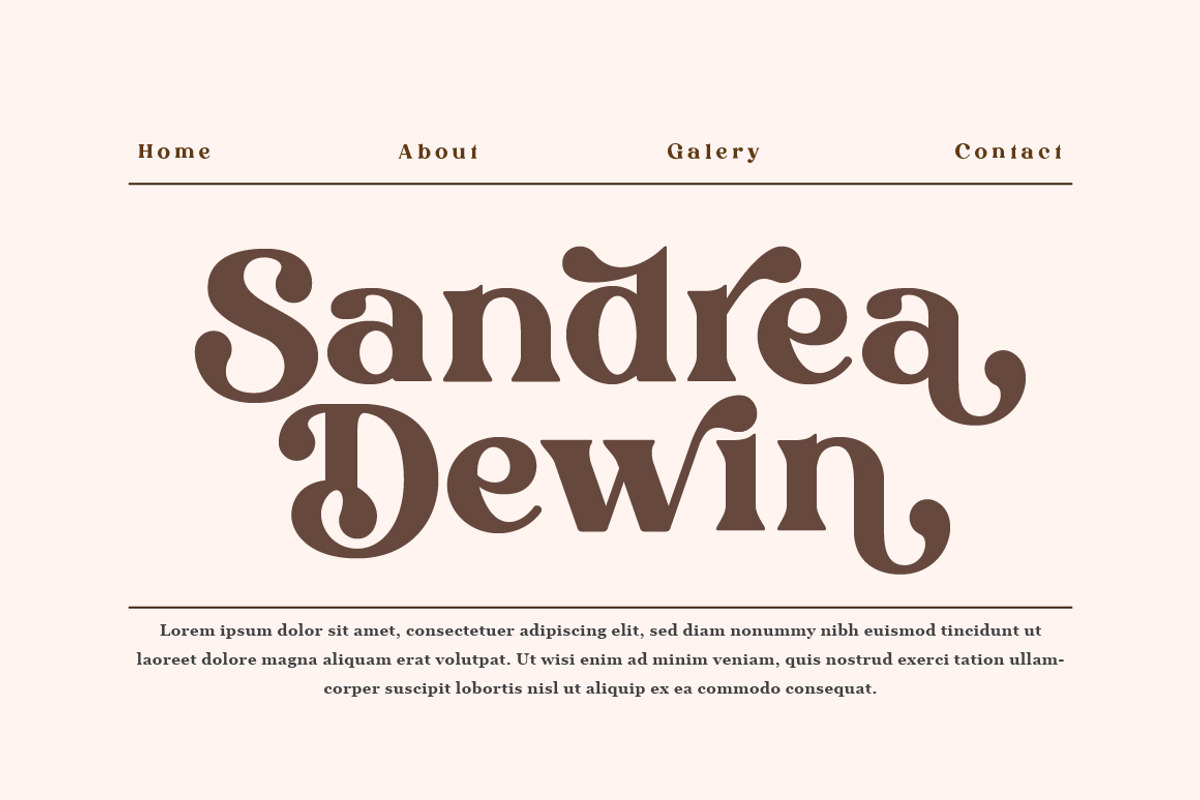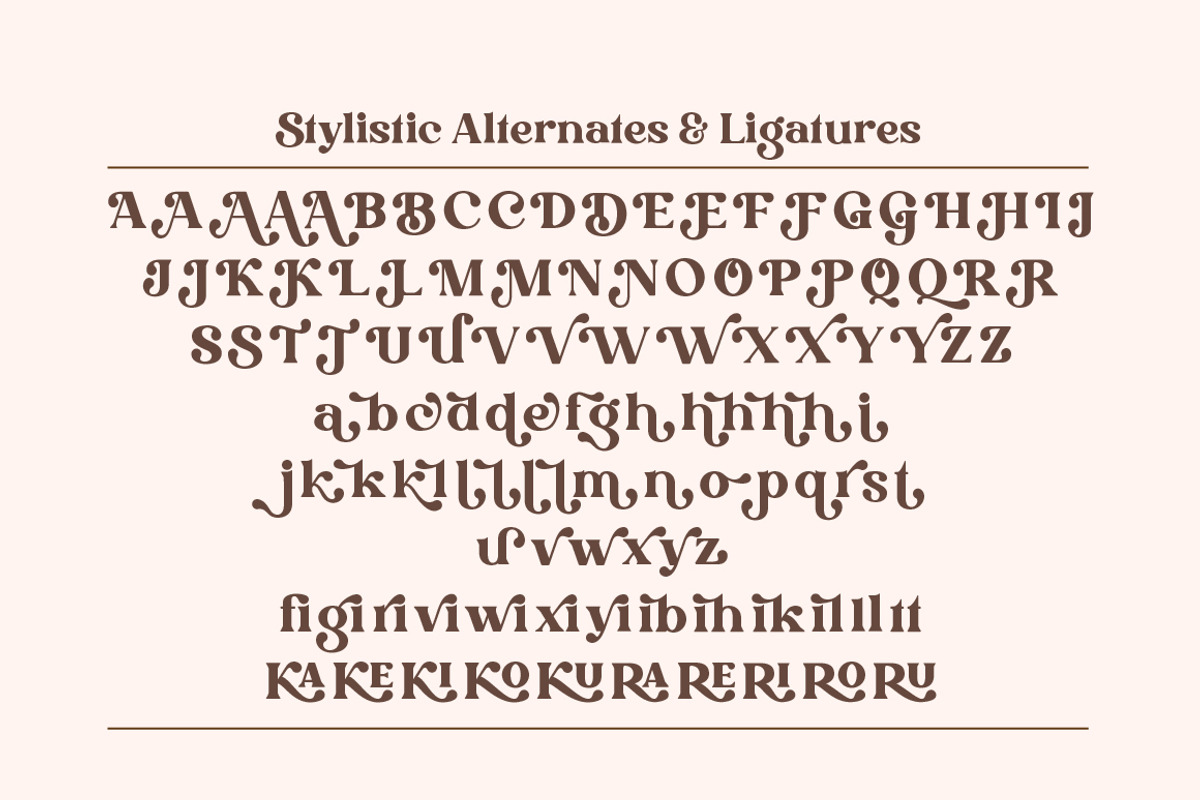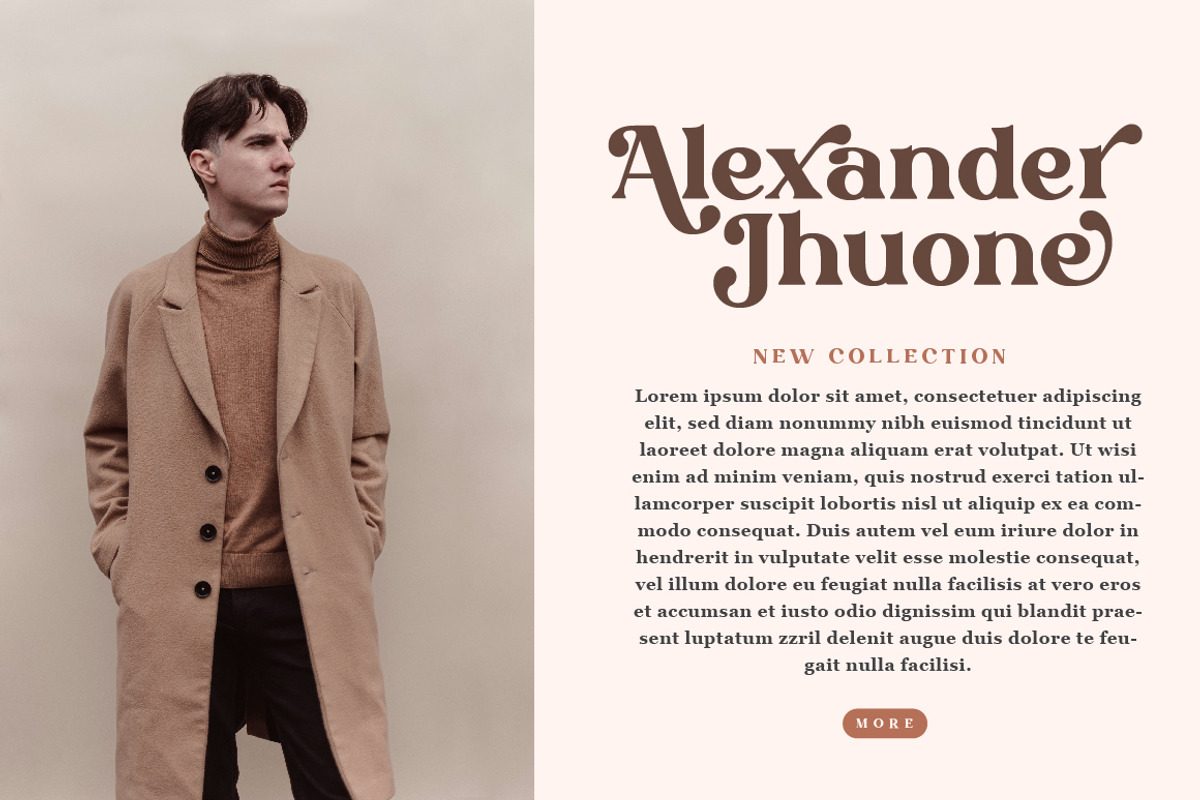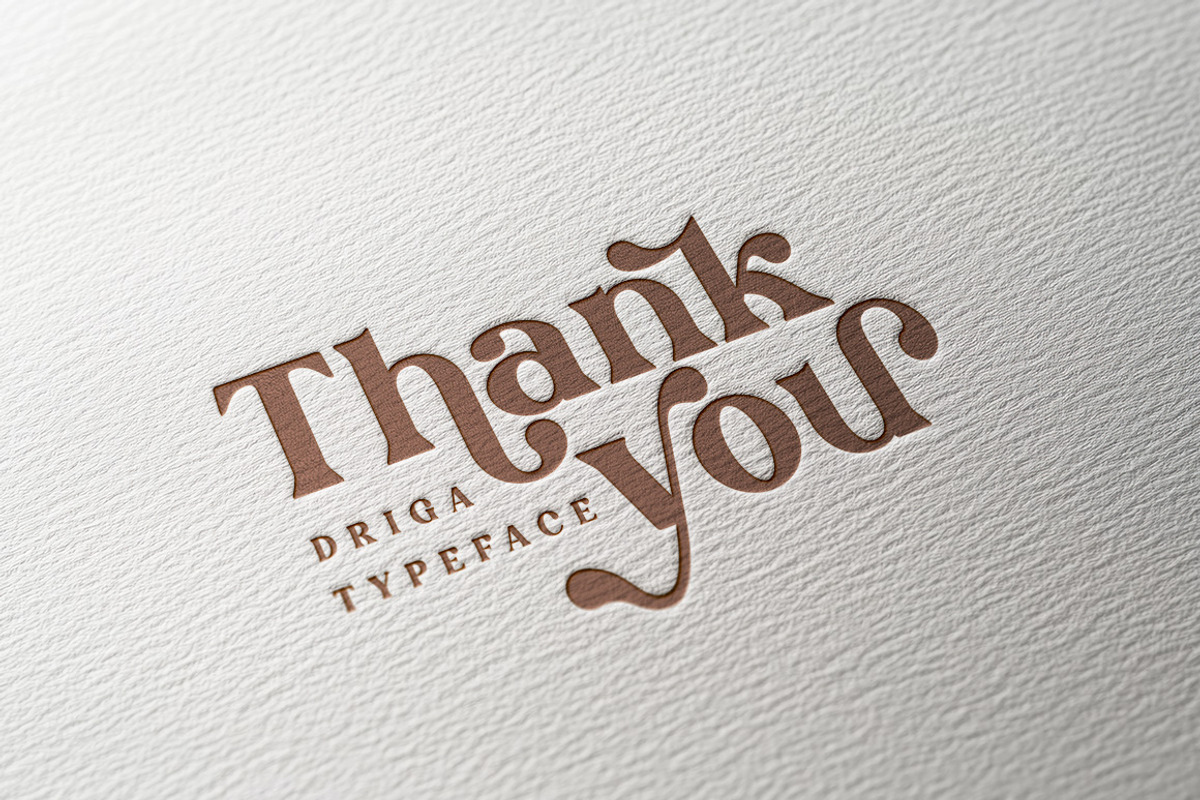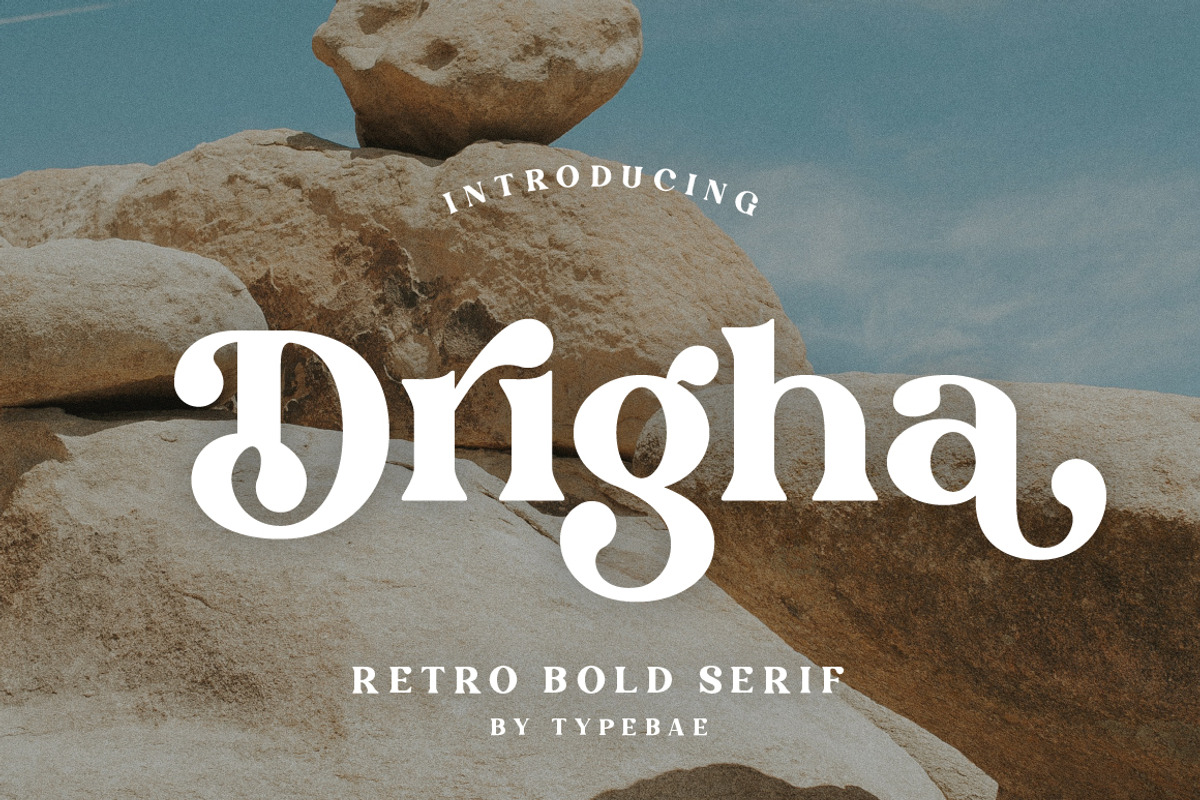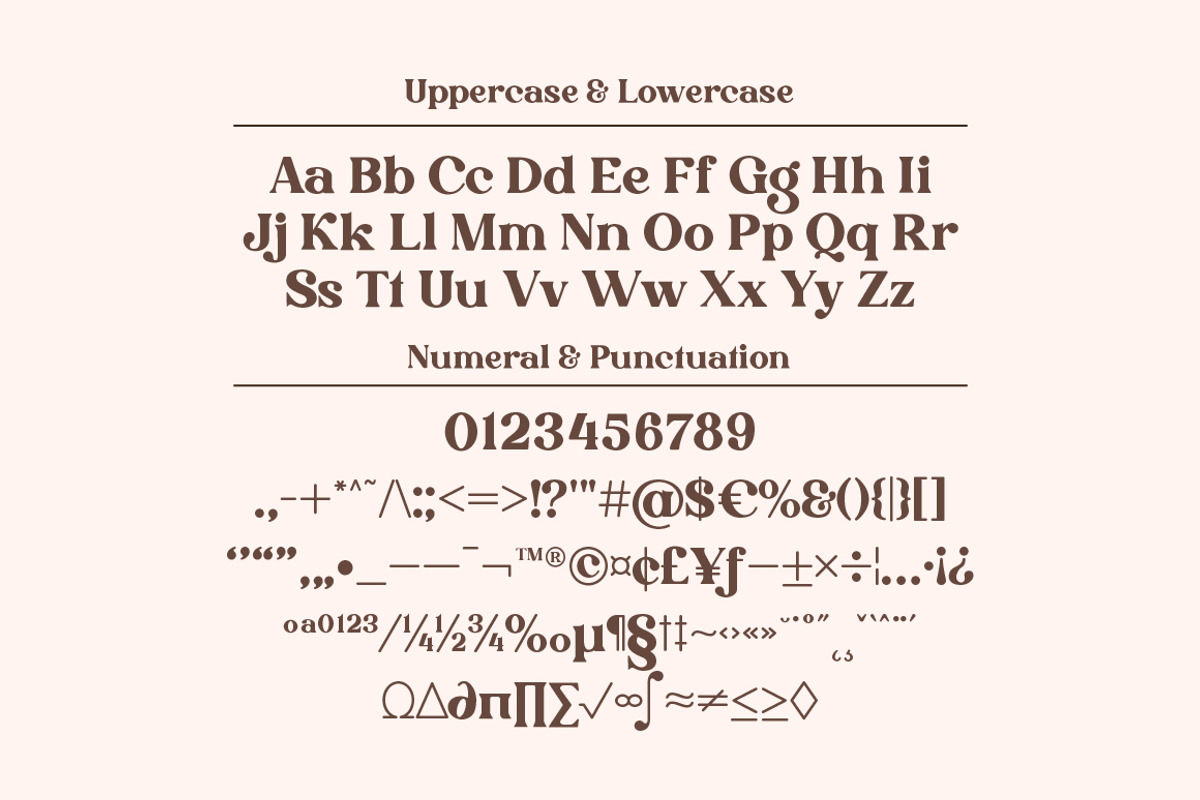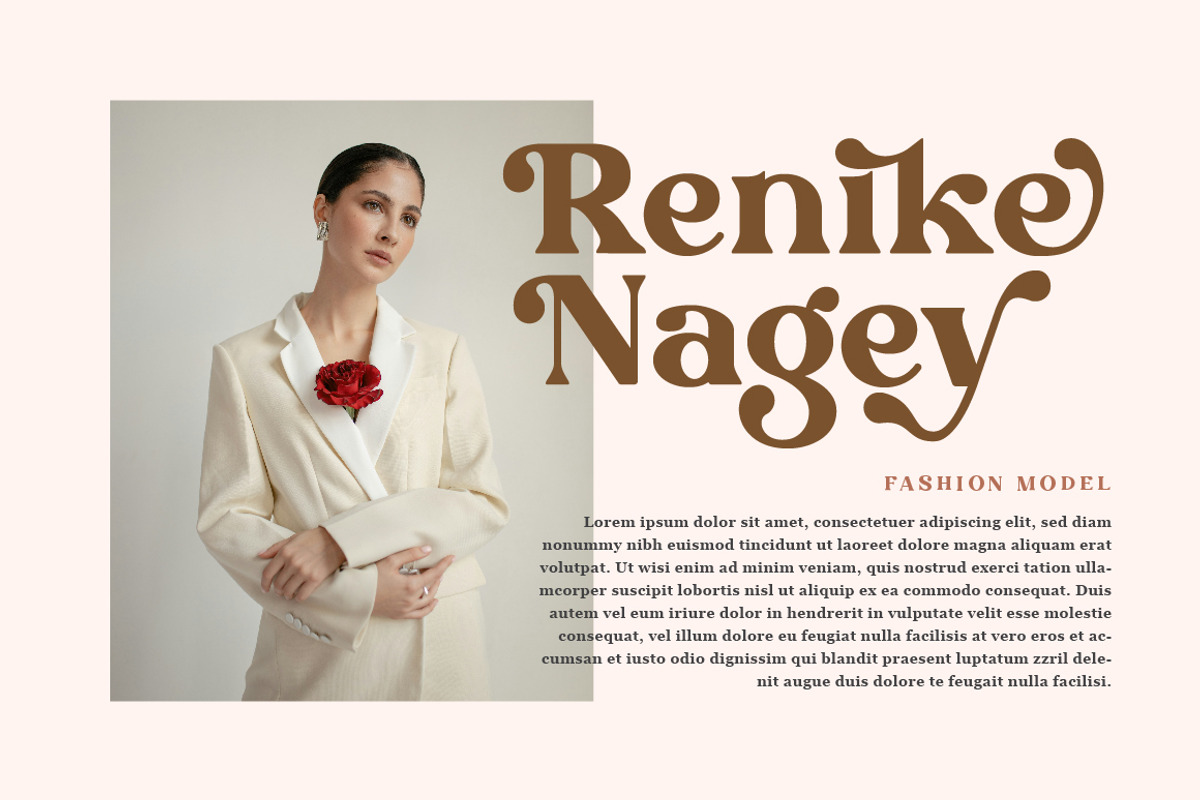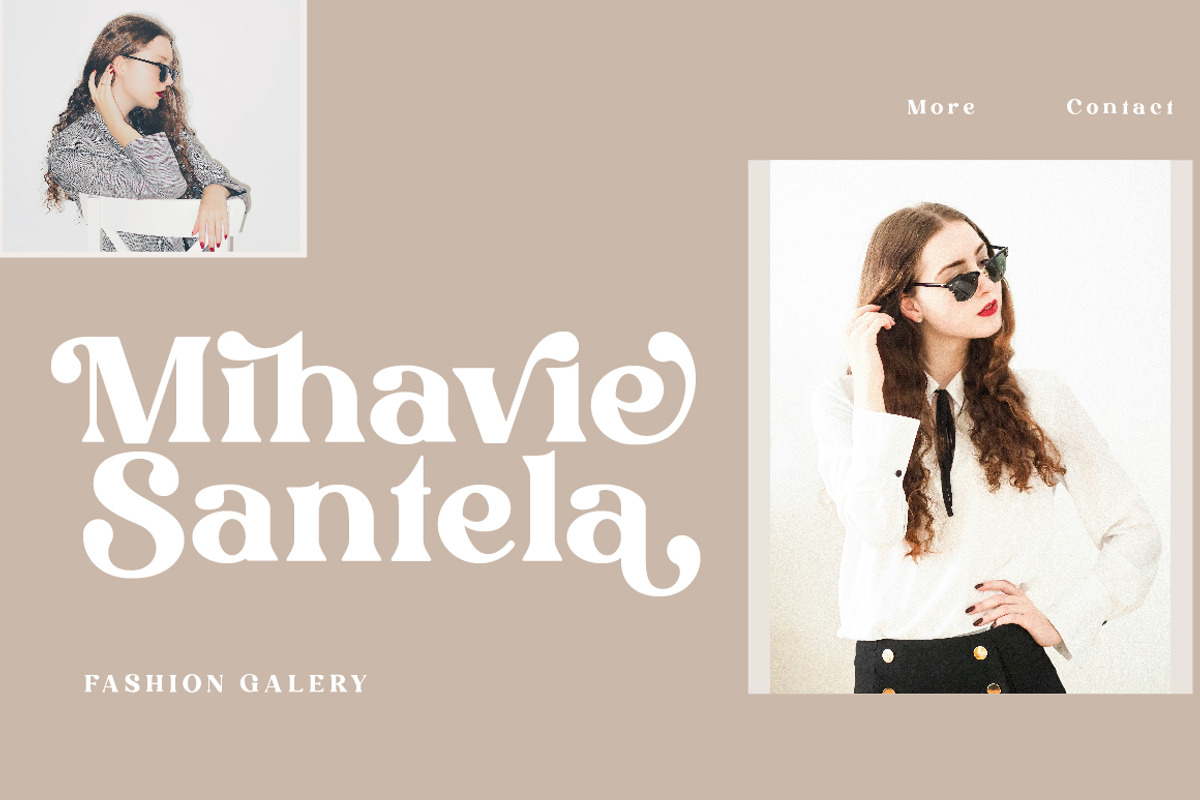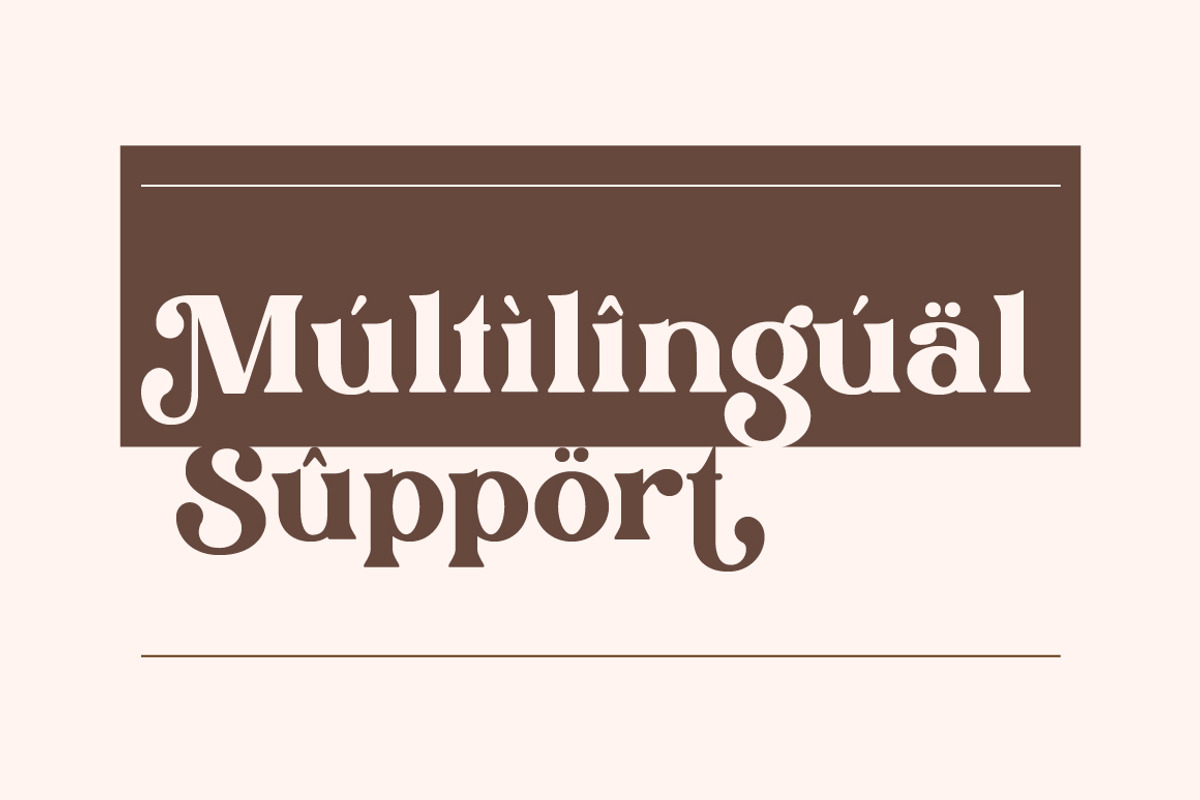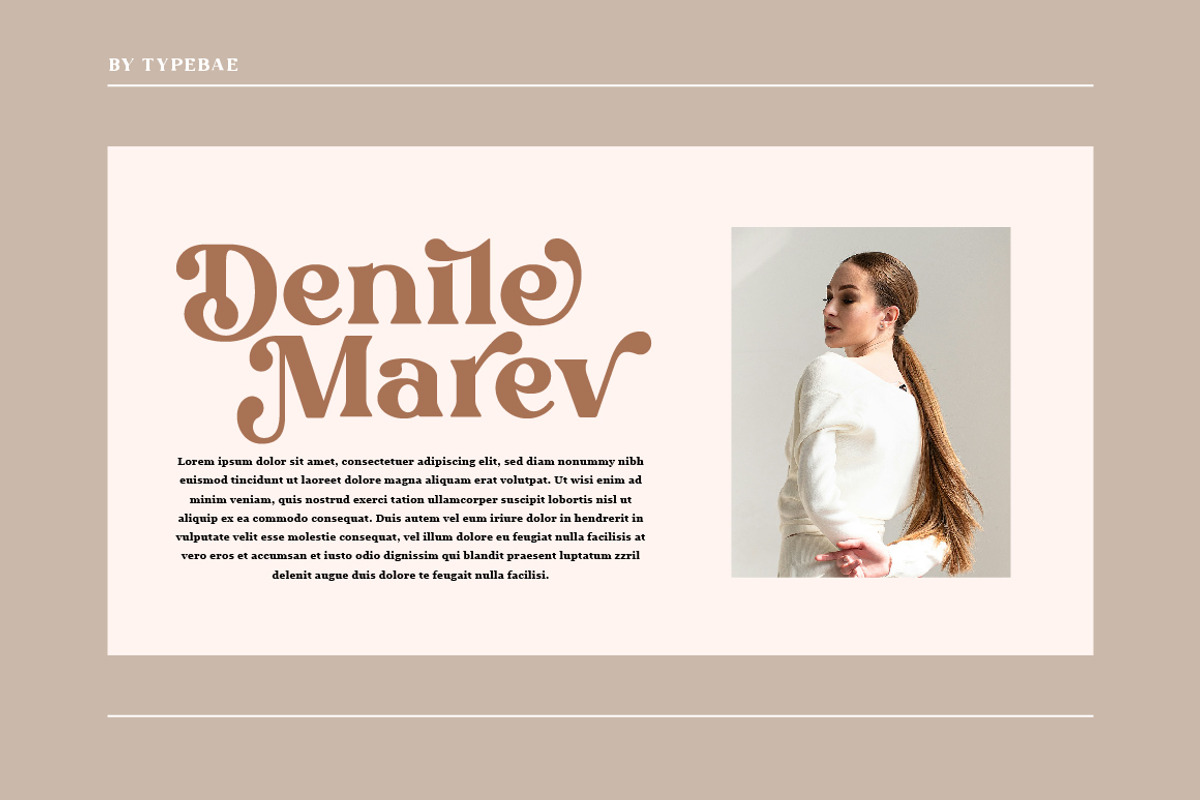
Drigha - Stylish Serif Font
Drigha is a stylish serif font that blends modern elegance with a retro charm. Its bold, clean, and playful design makes it perfect for layouts inspired by the vibrant aesthetics of the ‘60s and ‘70s.
This font is PUA encoded and includes over 90 unique alternates and 20 ligatures, allowing you to create a distinctive vintage look for your projects effortlessly.
- 90+ Stylistic Alternates and 20+ Ligatures